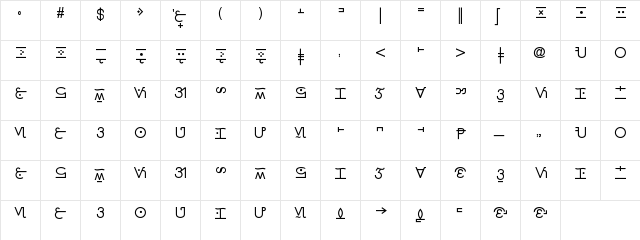
Nuevo Cebuano Linear -Normal Regular
Design Context for Nuevo Cebuano Linear -Normal Typeface
Nuevo Cebuano Linear -Normal offers clean, dependable letterforms without strong stylistic allegiance, making it a practical choice for designers who need flexibility.